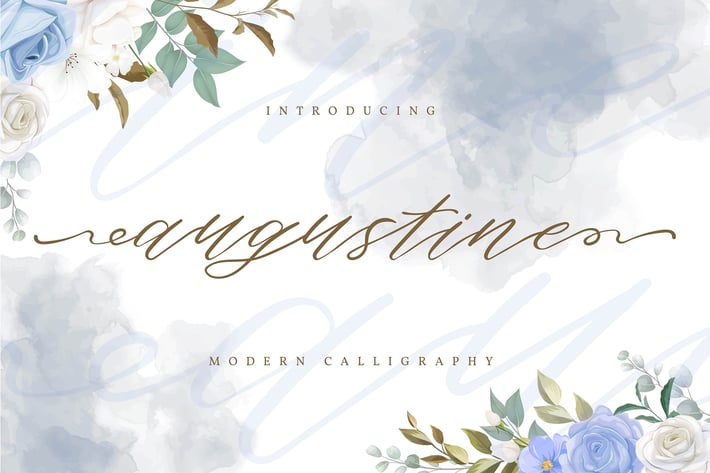
Augustine | Modern Calligraphy Font
Augustine | Modern Calligraphy Font with a calligraphy style, So beautiful on invitation like greeting cards, branding materials, business cards, quotes, posters, and more!